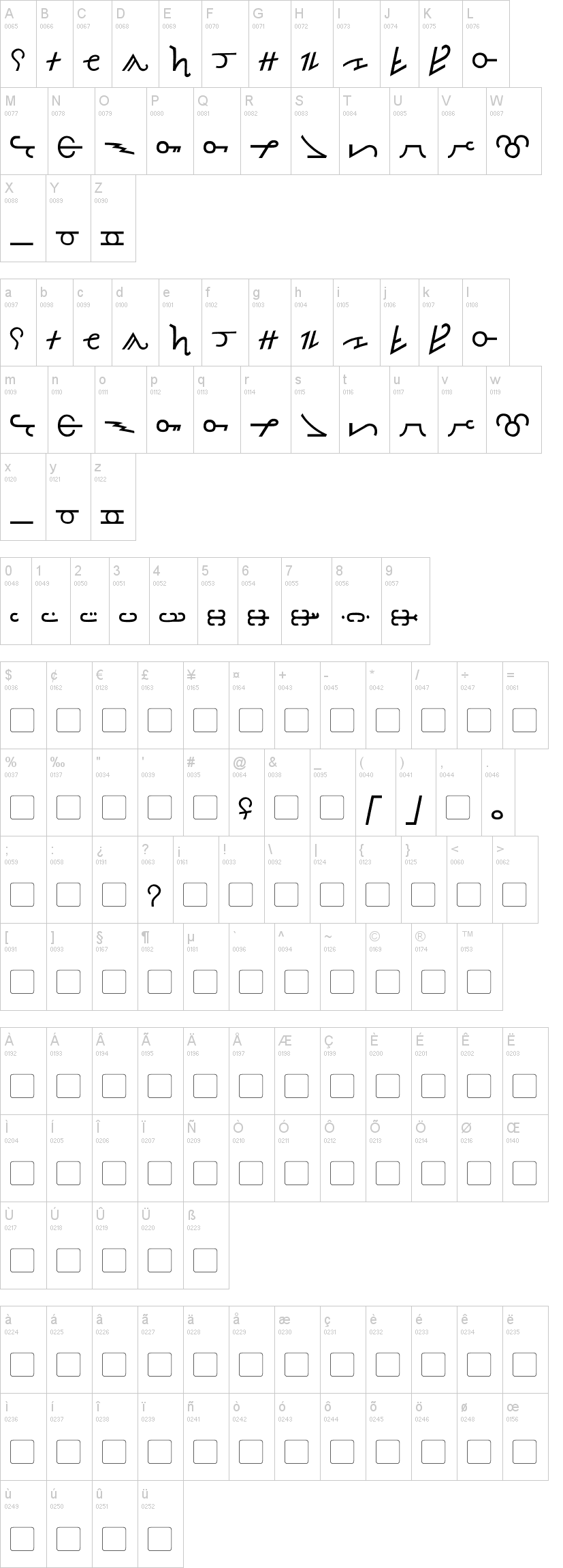
Note of the authorThis fantasy script is based on the Forgotten Realm's "Common Thorass" writing found in TSR's 2nd edition rulebooks. Includes full alphabet, numerals, and common "fanon" punctuation.